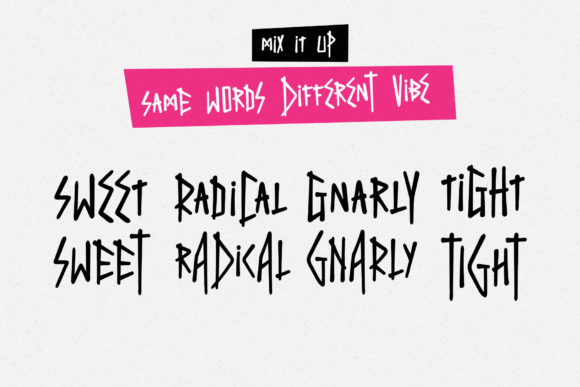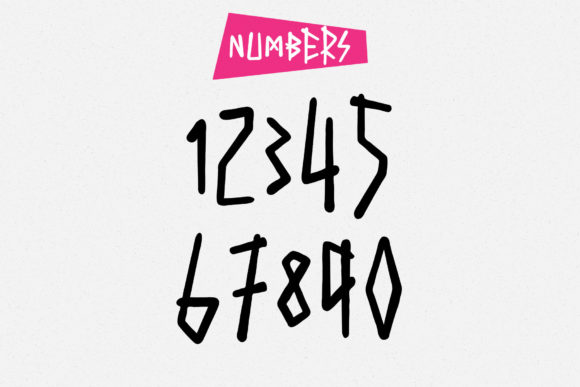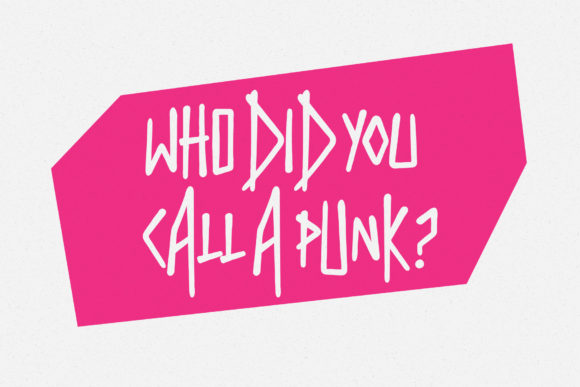
Introduction to Misfit Font
Remember that moment when you finally find the perfect font for your design project? It’s like the puzzle pieces fall into place, and everything clicks. For designers, finding the right font can make all the difference between a great design and a mediocre one. That’s exactly what the Misfit Font offers – a quirky and scary styled display font that’s perfect for designs that need a bold statement.
Whether you’re working on a t-shirt design, a logo for your client, or an advertisement that needs to grab attention, the Misfit Font is an excellent choice. Its unique style and high-quality design make it a valuable resource for any creative project. And the best part? It’s available for free download with a transparent background, making it easy to incorporate into your design.
Key Features of Misfit Font
- Unique and Creative Design: Misfit Font is a high-quality, one-of-a-kind design resource perfect for adding a touch of quirkiness to your creative project.
- Customizable Size and Resolution: Misfit Font can be scaled to any size, and its high resolution ensures that it remains crisp and clear even at large sizes.
Honest Review: Misfit Font
I recently stumbled upon the Misfit Font, and I must say it’s a fantastic addition to any designer’s resource arsenal. This font is perfect for creative projects that require a unique, quirky touch. With its free download option, it’s accessible to designers of all levels and budgets.
- ✨ High-quality design: The Misfit Font boasts a clean, crisp design that’s sure to elevate your creative project.
- ✨ Transparent background: This feature allows for seamless integration with your design, making it a breeze to work with.
- ✨ Versatile: The Misfit Font is suitable for a wide range of designs, from logos to typography-based projects.
- ⚠️ Limited customization options: The font’s design is fixed, which may not be ideal for designers who require more flexibility.
- ⚠️ Limited language support: The font may not be suitable for projects that require support for multiple languages.
Overall, the Misfit Font is a great addition to any designer’s toolkit. Its unique design, high-quality construction, and transparent background make it a standout choice for creative projects. While it may have some limitations, the benefits far outweigh the drawbacks, making it a worthwhile download for designers of all levels.
Misfit Font
Misfit Font is a unique and versatile design resource that can elevate your creative project to the next level. With its high-quality design and transparent background, you can easily integrate it into your existing design.
Tips for Getting the Most Out of Misfit Font
Here are some tips to help you get the most out of Misfit Font:
- Experiment with different font sizes and colors to create a unique visual effect.
- Combine Misfit Font with other design elements to create a cohesive look.
- Use the font to create eye-catching headlines and titles.
Misfit Font is perfect for:
- Designing social media graphics and posts.
- Creating presentations and reports.
- Developing branding materials and logos.
Is the Misfit Font suitable for use in high-resolution designs?
Yes, the Misfit Font is designed to be high-quality and scalable, making it suitable for use in high-resolution designs. The font is available in high-resolution formats, including SVG and EPS, which can be scaled up or down without losing any quality. This makes the Misfit Font an excellent choice for designers working on large-scale projects